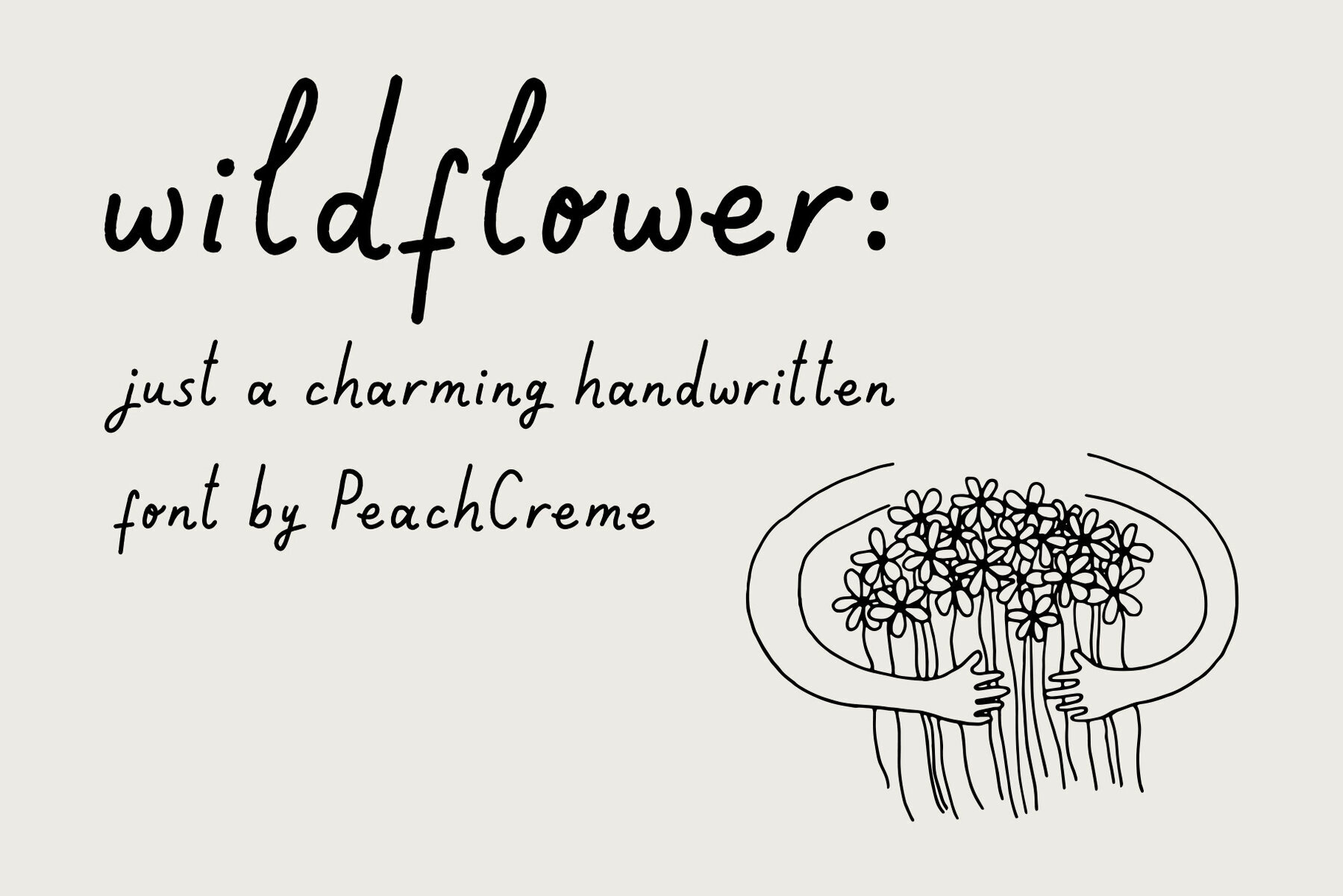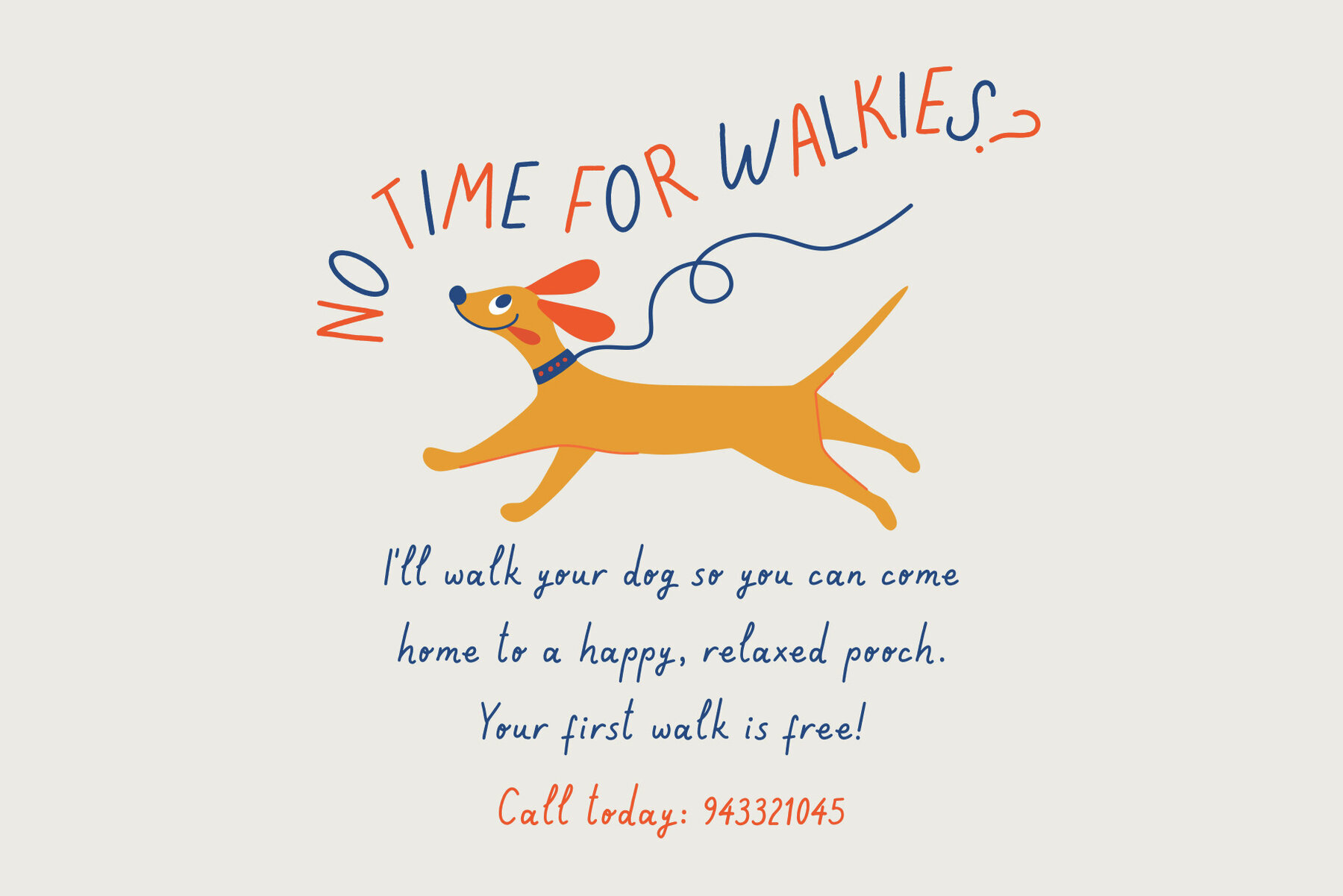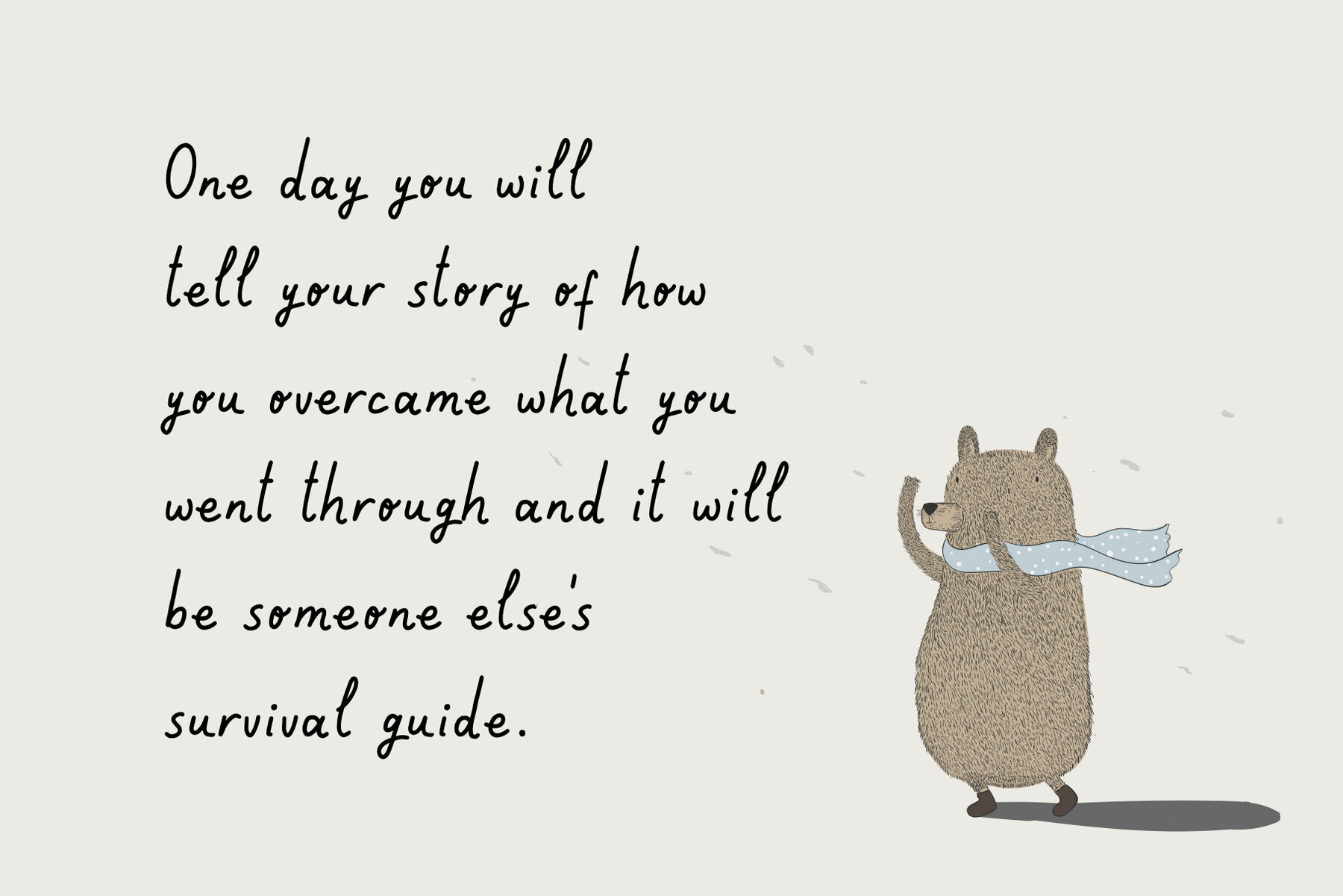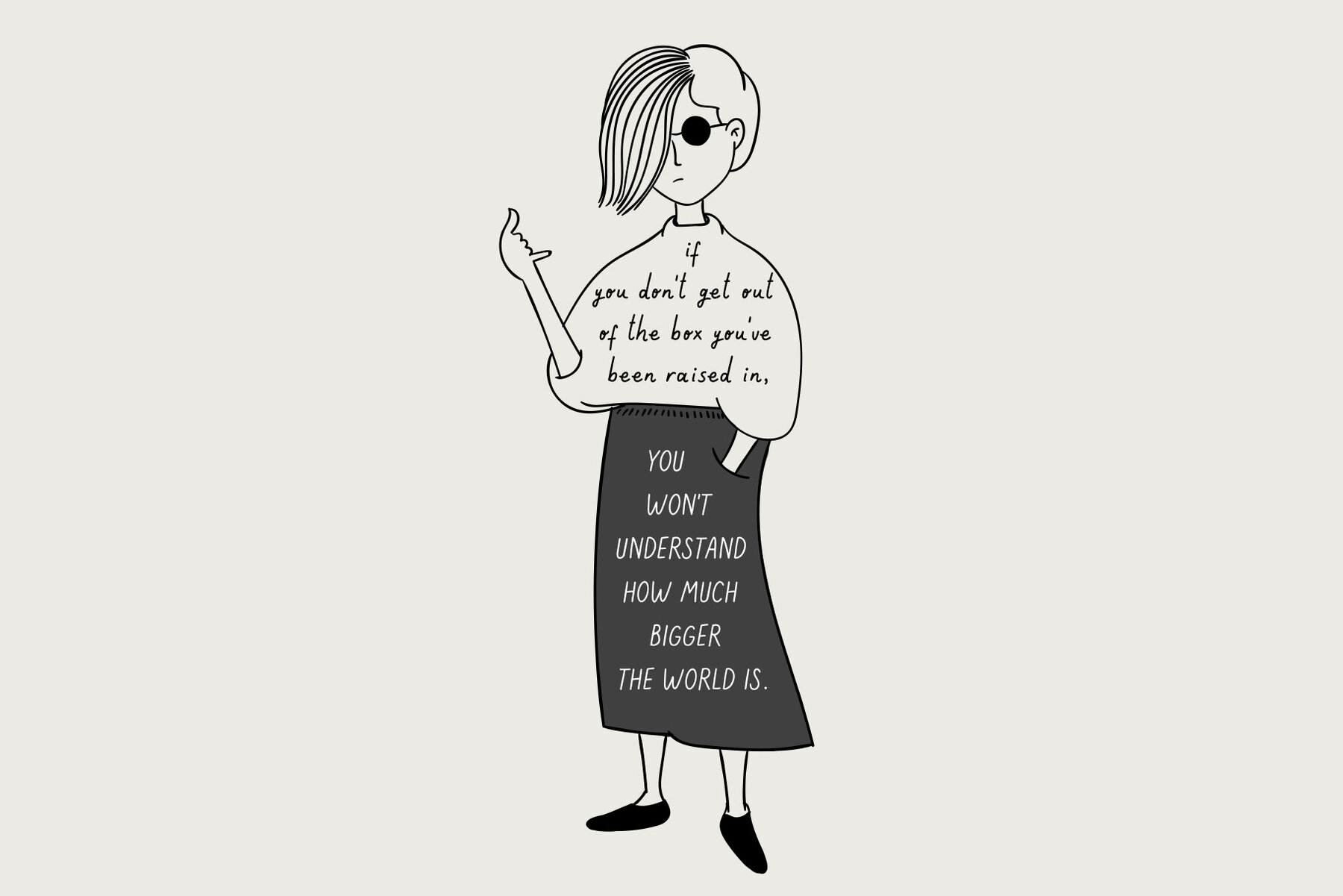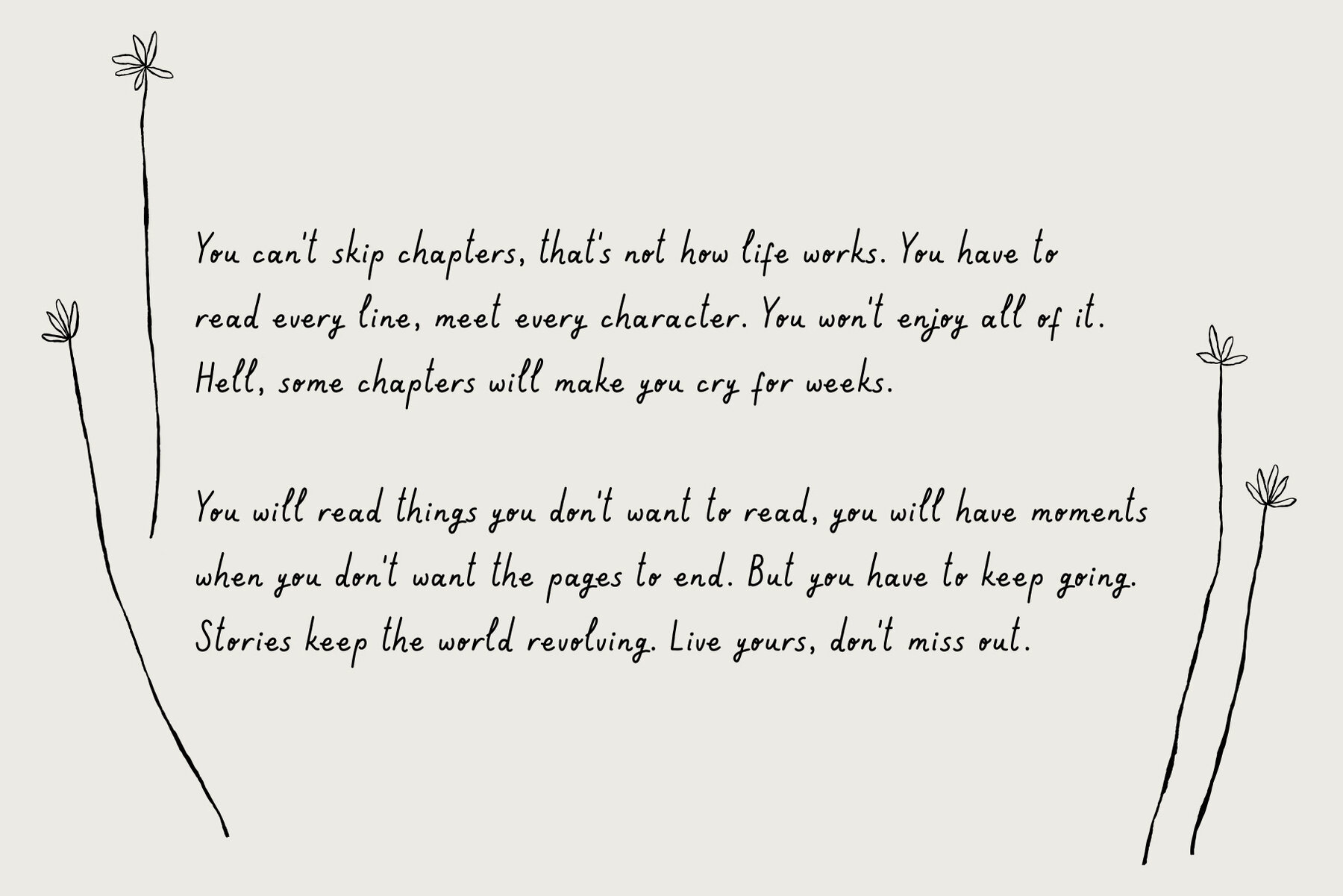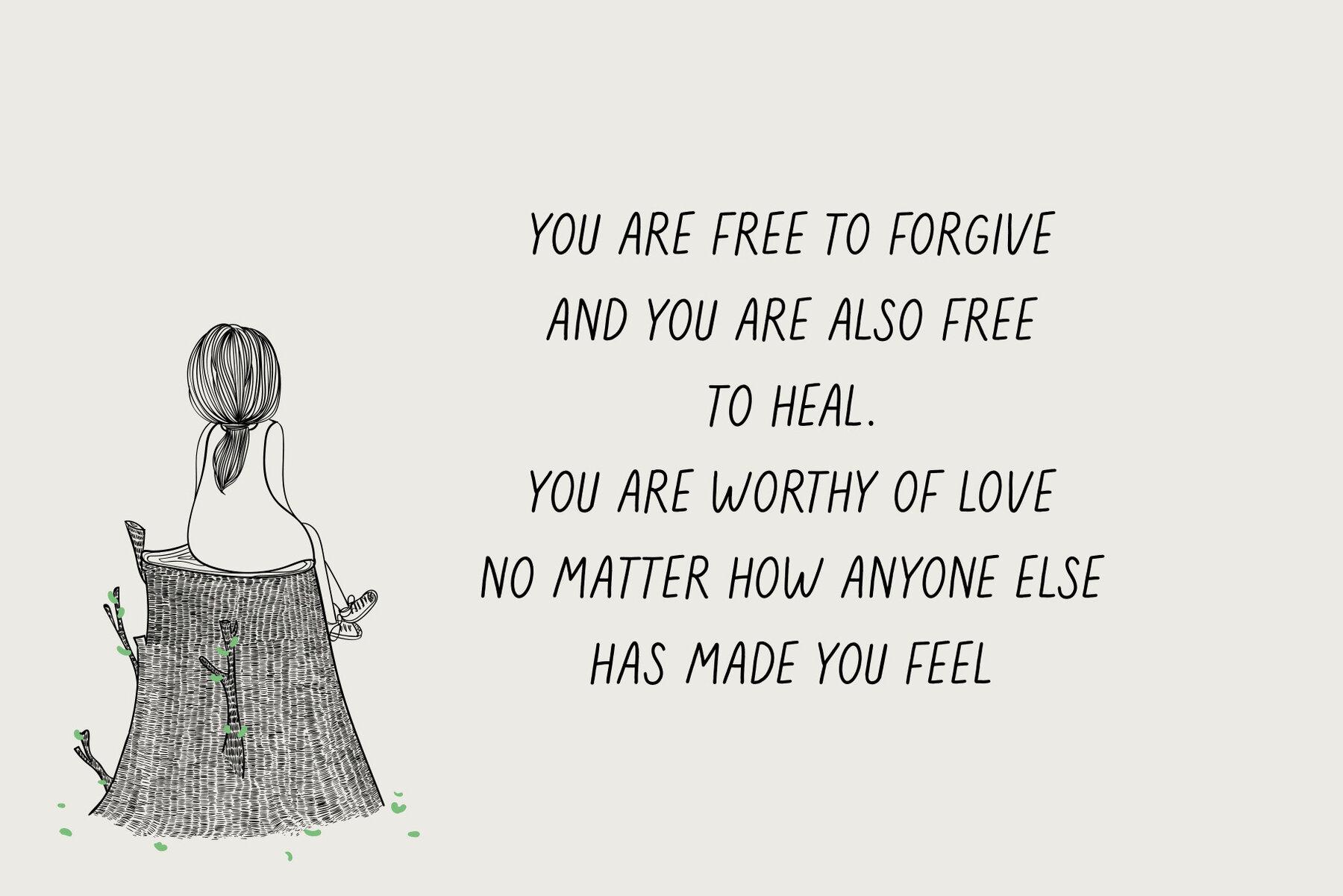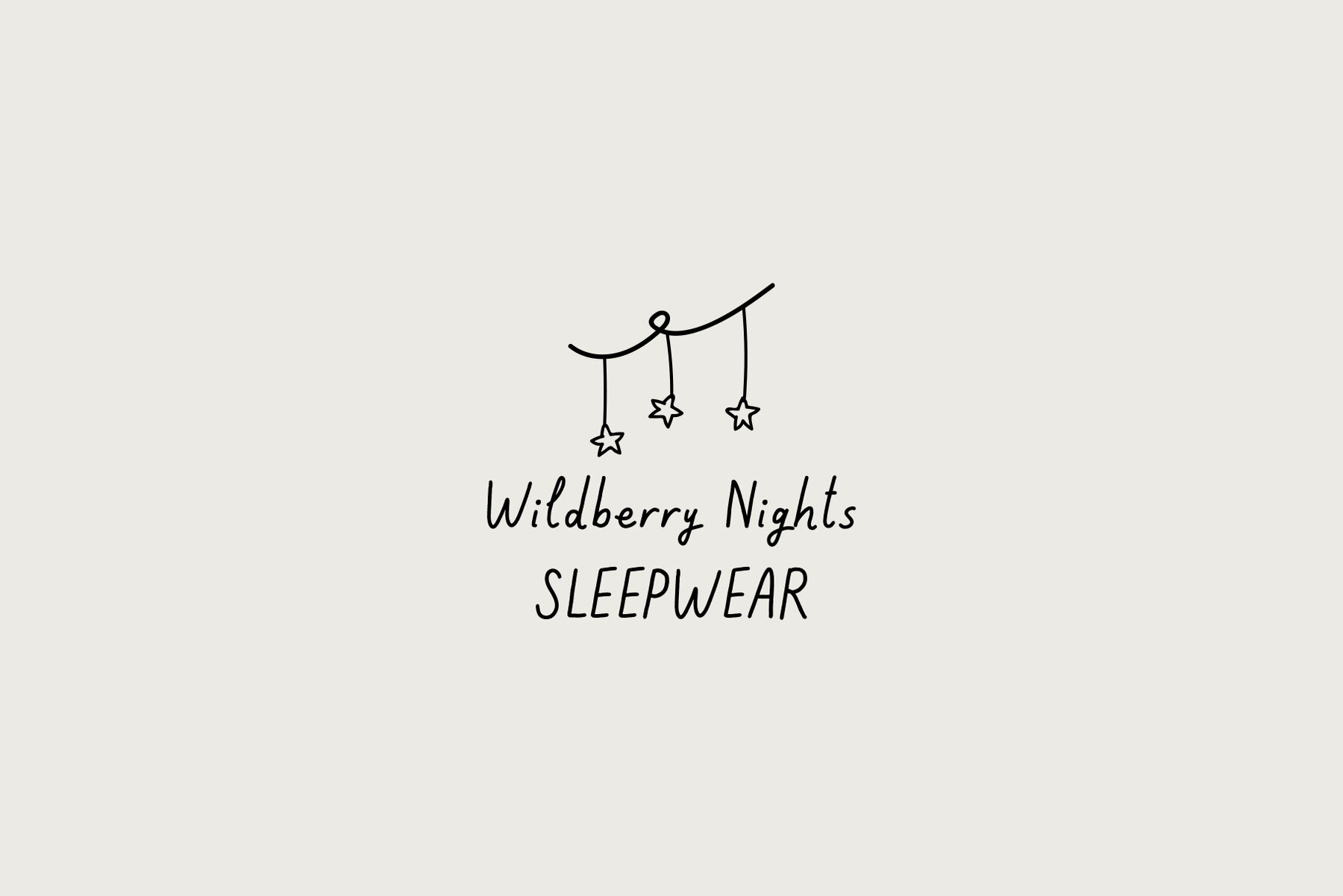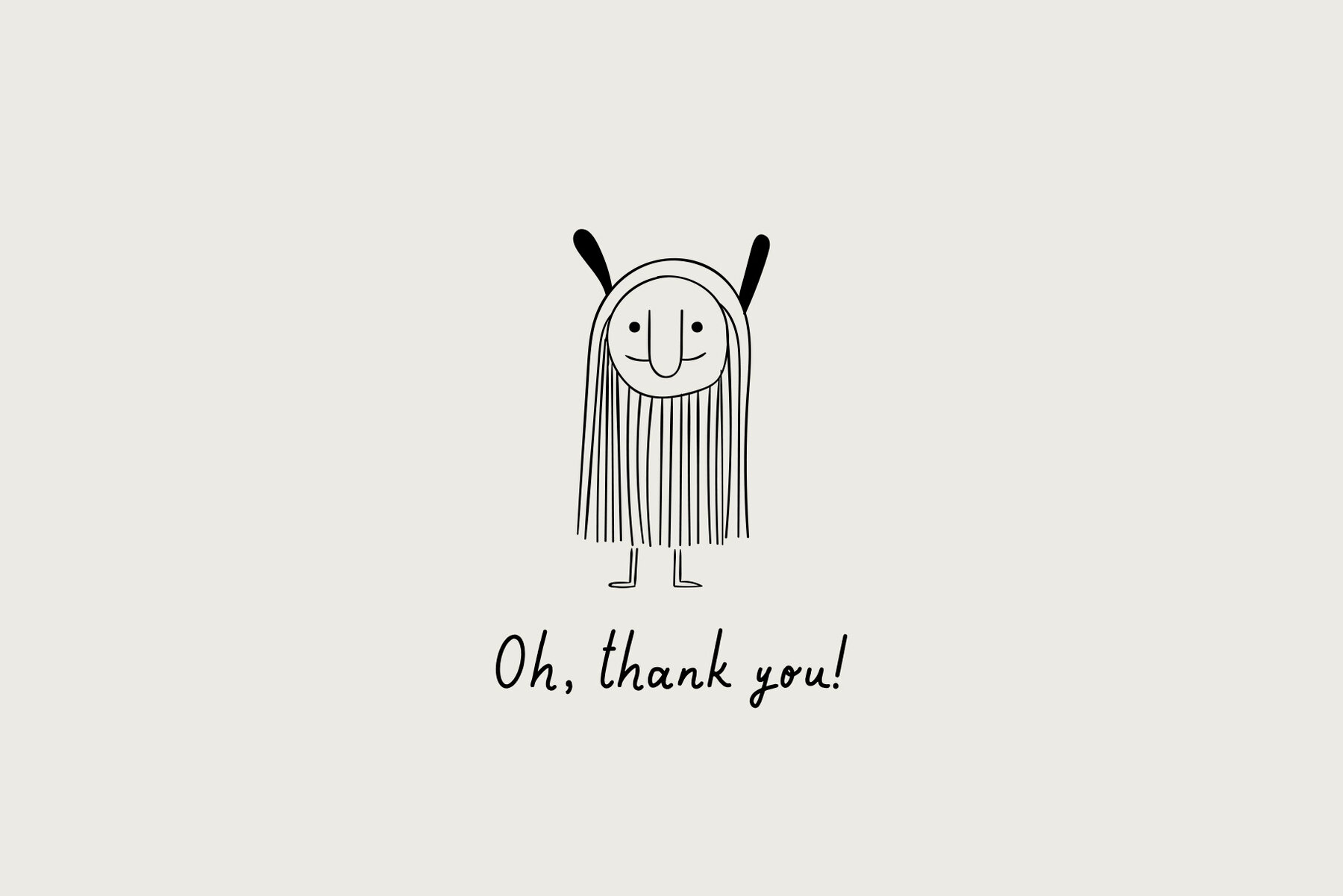
Wildflower Font
Wild Flower Regular
"Wildflower" is a charming hand-lettered typeface that adds an endearing, friendly touch to any project. Its playful and welcoming character makes it perfect for creating engaging banners, logos, greeting cards, and unique packaging designs. With its genuine, one-of-a-kind appearance, "Wildflower" enables your work to stand out and resonate with authenticity.
This delightful typeface brings a warm and approachable feel that is versatile for various applications. Whether you're looking to add a personal touch to a brand or craft a memorable message, "Wildflower" provides the perfect balance of cheerfulness and elegance. Add a unique flair to your designs with this captivating typeface.